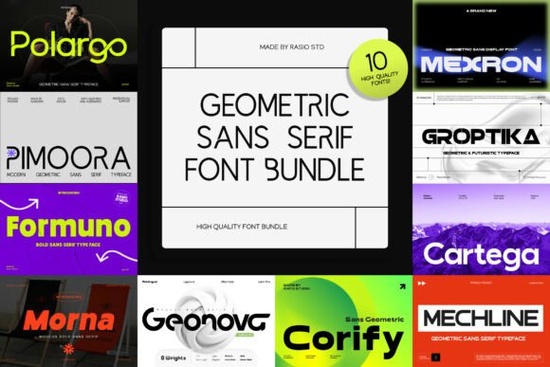
Designers, crafters, and small business owners often look for fonts that bring clarity and modernity to their projects. The Geometric Sans Serif Bundle Font is a great choice for those who want a clean, structured, and contemporary look. This collection includes a variety of geometric typefaces that offer both versatility and visual impact. Whether you're working on branding, UI design, or editorial layouts, this bundle provides a solid foundation for your creative work.
The Geometric Sans Serif Bundle Font stands out for its balance of form and function. Each font in the collection has a unique personality, from soft rounded shapes to sharp, futuristic structures. This variety makes it easy to match the tone of your project, whether you're going for a minimalist feel or something more dynamic. The fonts are designed with precision, ensuring they look great in both digital and print formats.
One of the key advantages of the Geometric Sans Serif Bundle Font is its adaptability. It works well for a wide range of applications, including logos, website headers, posters, and marketing materials. The clean lines and consistent structure make it easy to pair with other fonts or graphic elements without overwhelming the design. This makes it a valuable addition to any designer's toolkit.
For those new to using geometric fonts, it's helpful to understand how they can enhance different types of projects. For example, a tech startup might use a sharp, angular font to convey innovation and reliability, while a lifestyle brand could opt for a softer, rounded style to feel more approachable. The Geometric Sans Serif Bundle Font gives you the flexibility to explore these options without needing to purchase multiple individual fonts.
When choosing a font, it's important to consider the message you want to communicate. Geometric sans serif fonts are often associated with modernity, efficiency, and professionalism. They can help create a sense of order and clarity, which is especially useful in UI/UX design where readability is crucial. The Geometric Sans Serif Bundle Font ensures that you have access to a range of styles that can support your design goals.
For a quick reference, here's a checklist to help you get the most out of the Geometric Sans Serif Bundle Font:
- Experiment with different weights to see how they affect the overall look of your design.
- Pair it with complementary fonts to add visual interest without creating clutter.
- Test the fonts in both digital and print formats to ensure they meet your quality standards.
- Use it for a variety of projects, from branding to editorial layouts, to maximize its value.
By incorporating the Geometric Sans Serif Bundle Font into your workflow, you can achieve a polished and professional look that resonates with your audience. Whether you're working on a personal project or a client's design, this collection offers the tools needed to create visually appealing and functional typography.